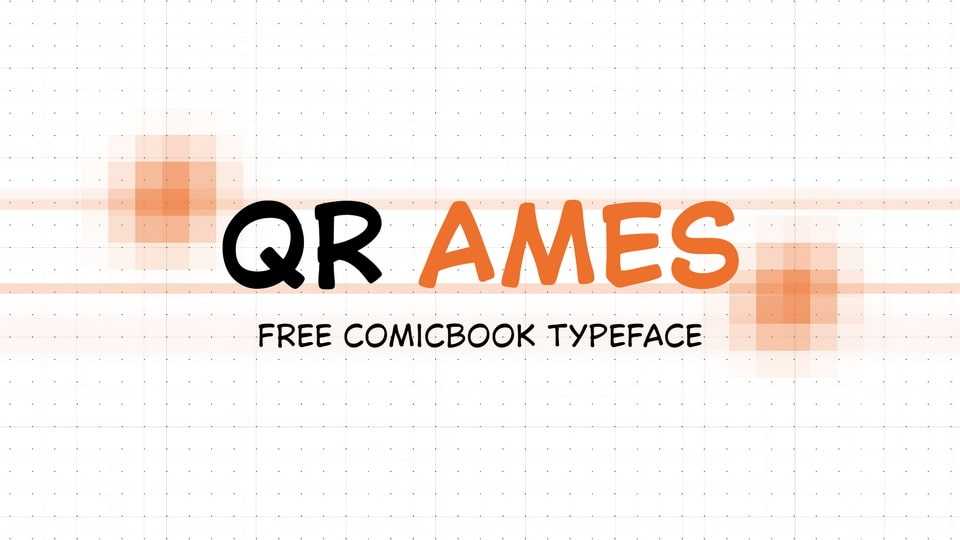
Download QR Ames Beta font, a hand-drawn display typeface created specifically for comic lettering. It captures the energetic, informal rhythm typical of classic comic dialogue.